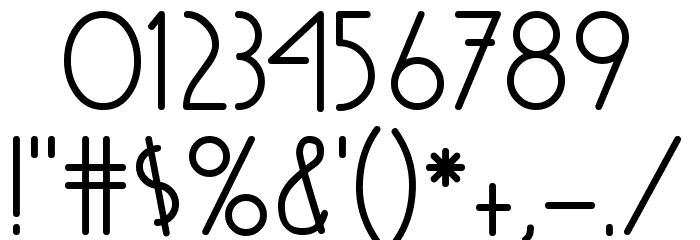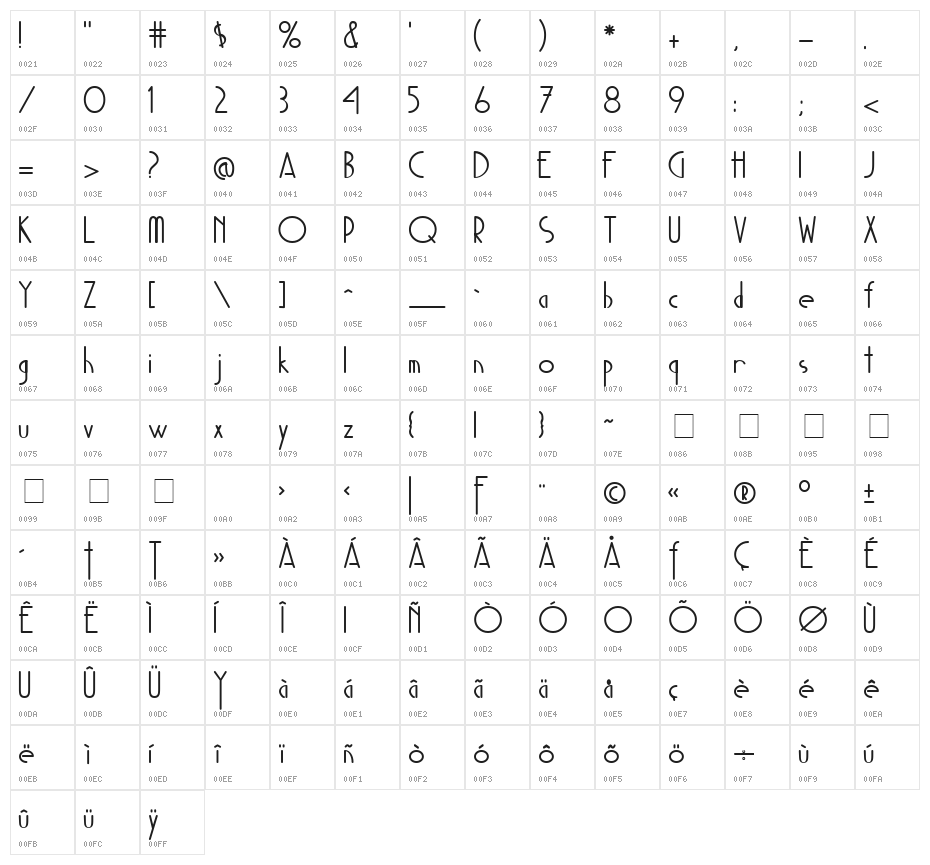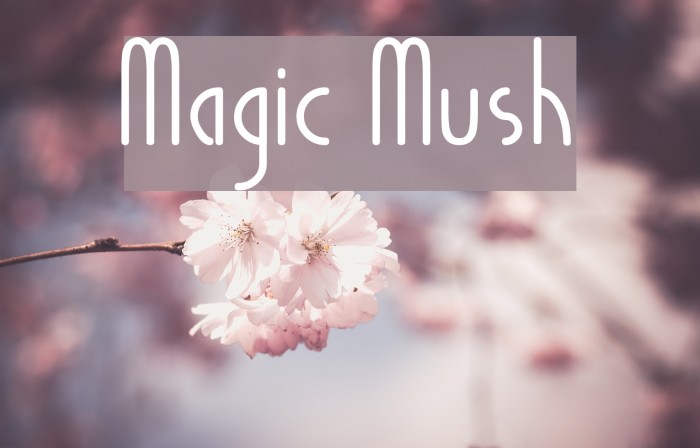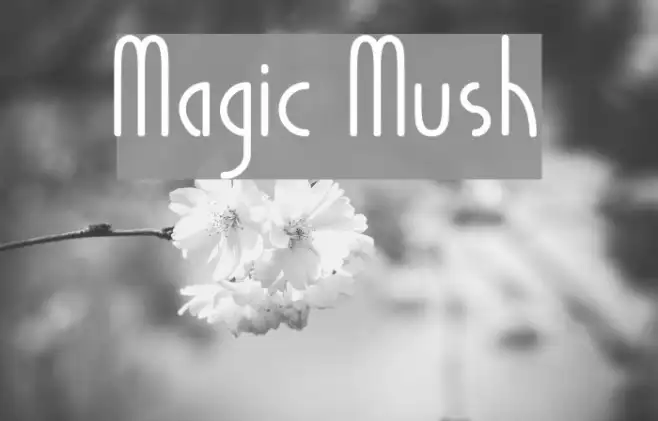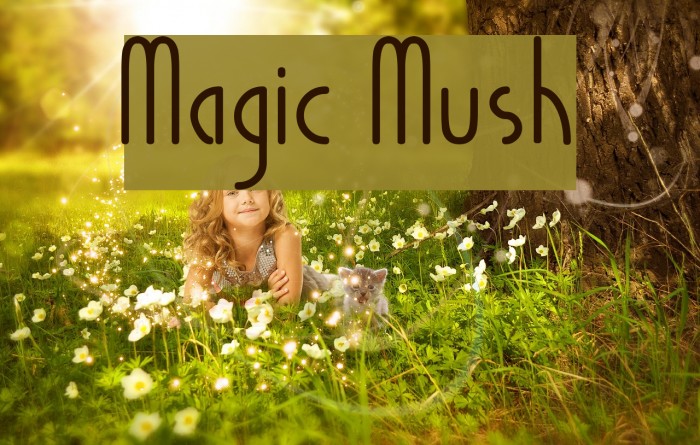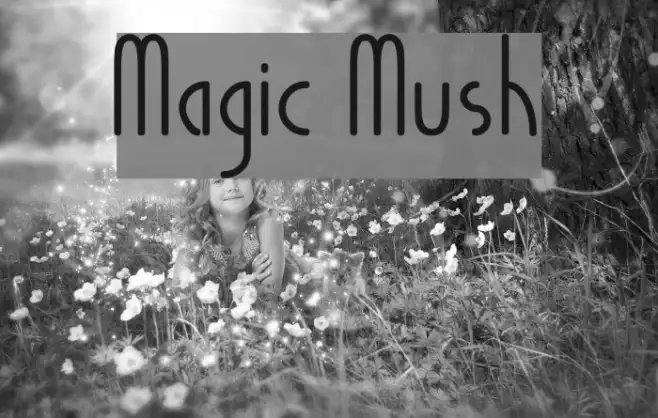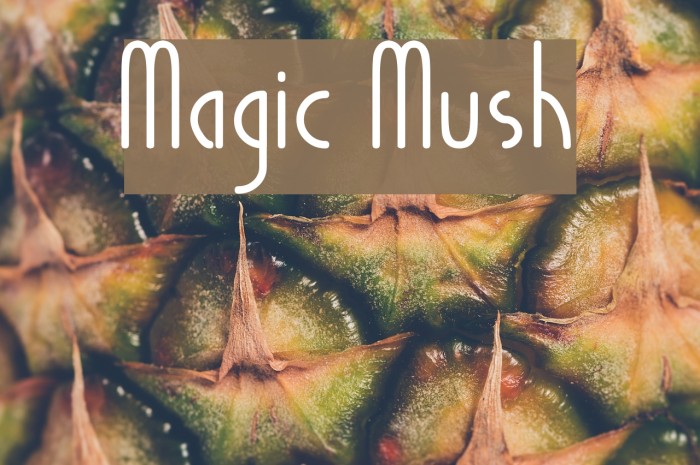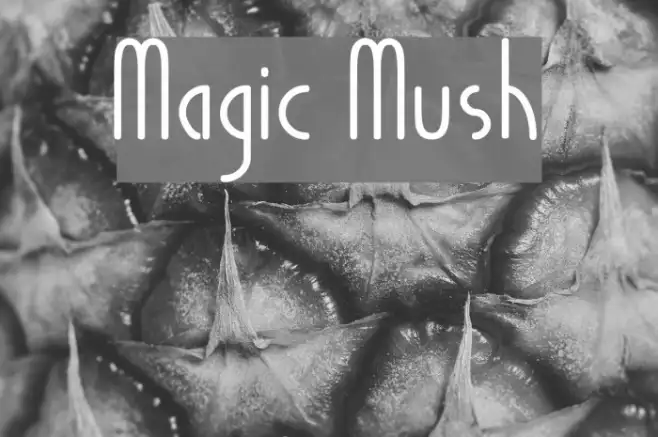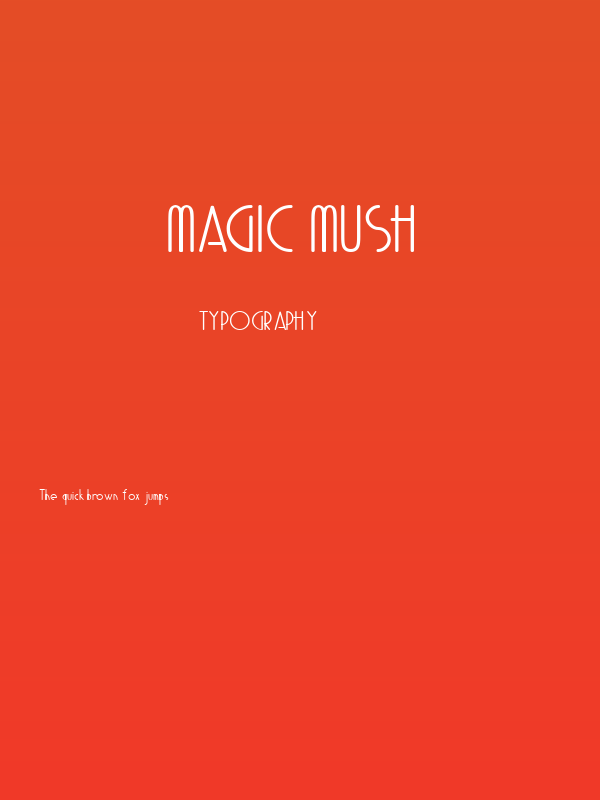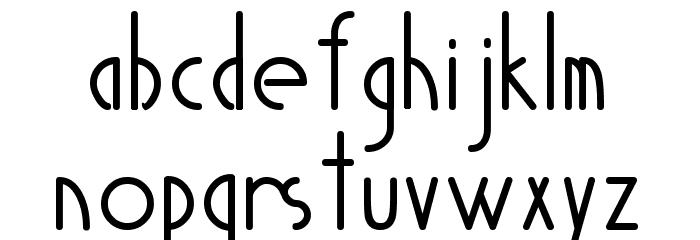
Magic Mush Font
Magic Mush Description
This font features a whimsical and playful design, characterized by its rounded and elongated letterforms. The uppercase letters are tall and narrow, while the lowercase letters maintain a consistent height, adding to the font's quirky charm. The numerals are distinct and easy to read, with a slight curve that complements the overall style. Special characters are creatively designed, maintaining the playful aesthetic. The font's unique style makes it suitable for projects that require a fun and informal touch.